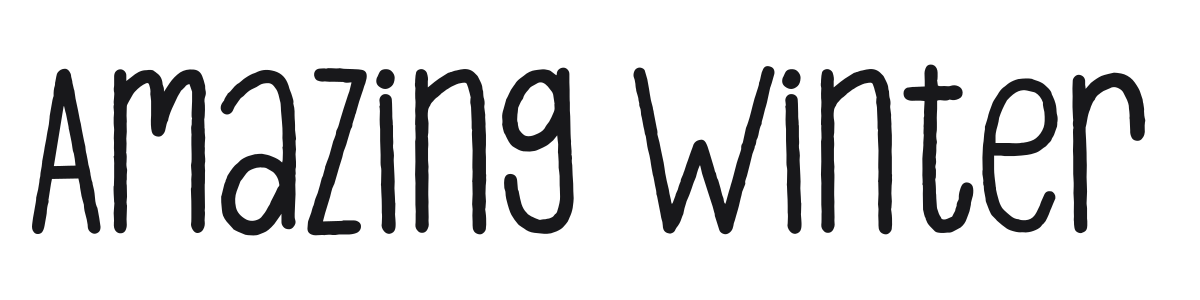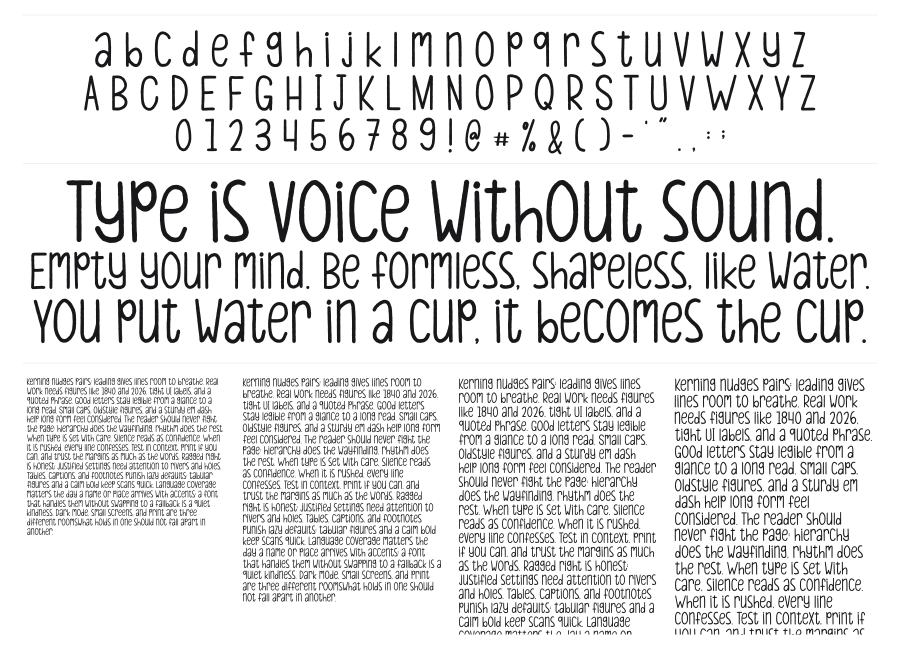
Amazing Winter
Amazing Winter is a casual handwritten sans-serif with tall, narrow characters and rounded terminals that give it a warm, informal energy. The slight irregularity in strokes and baseline keeps it feeling genuinely hand-drawn rather than mechanically constructed. Works well for seasonal promotions, children's content, and any project that needs a friendly, approachable voice.